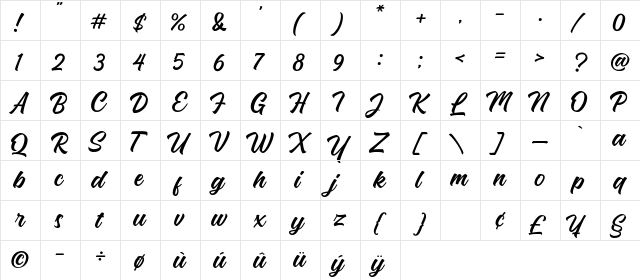
Srabi Script Regular
Regular ·  Hasta Studio - Salman Mashudi ·
DesignerHasta Studio - Salman Mashudi
Design Context for Srabi Script Typeface
Srabi Script flows with the natural rhythm of handwritten lettering, making it ideal for designs that call for warmth and personal expression.
Font Pairing: Combine Srabi Script with a simple geometric sans for maximum contrast — the tension between flowing curves and clean structure is a classic typographic pairing.
Pro Tip: Use Srabi Script for short runs of text — names, titles, or taglines. Extended body copy in script faces tires the eye quickly.